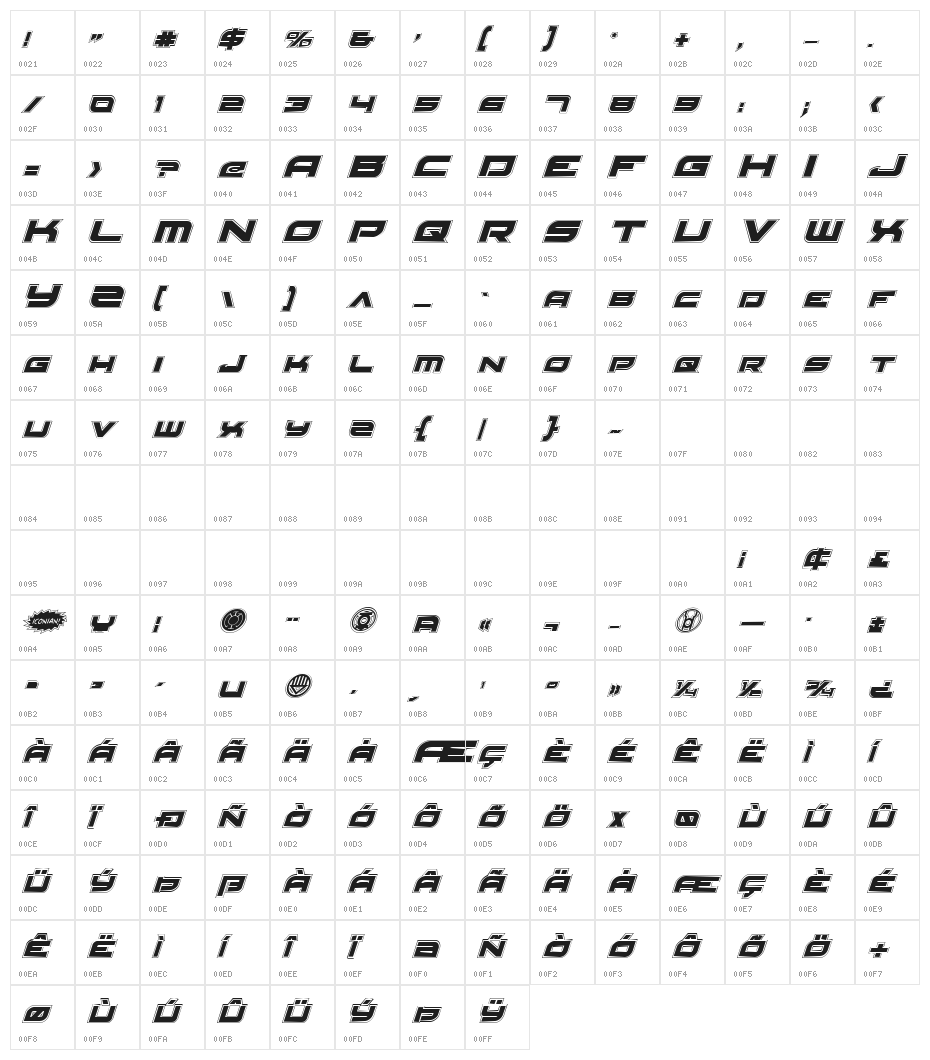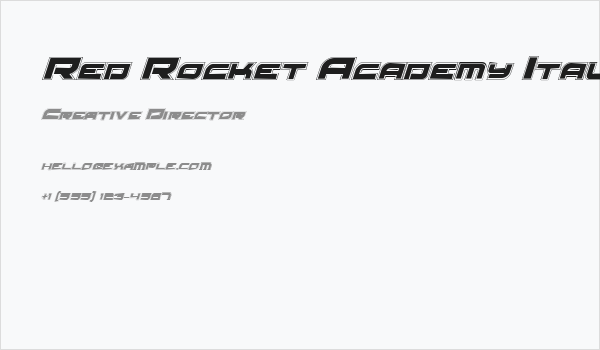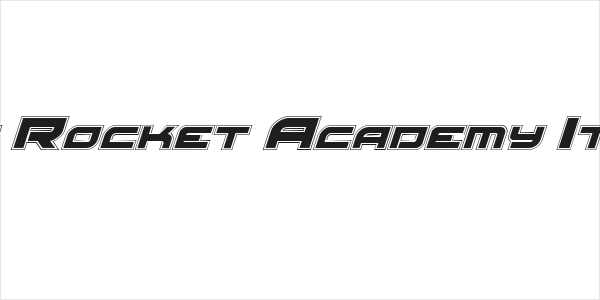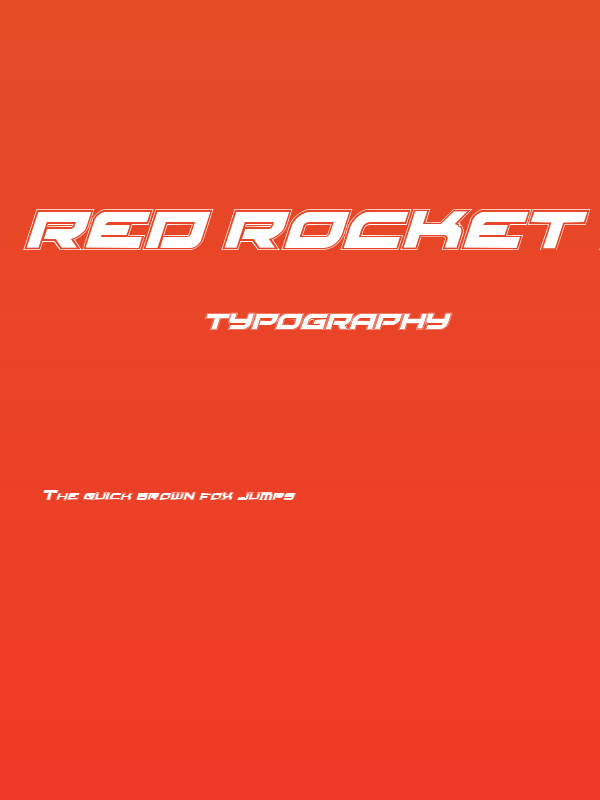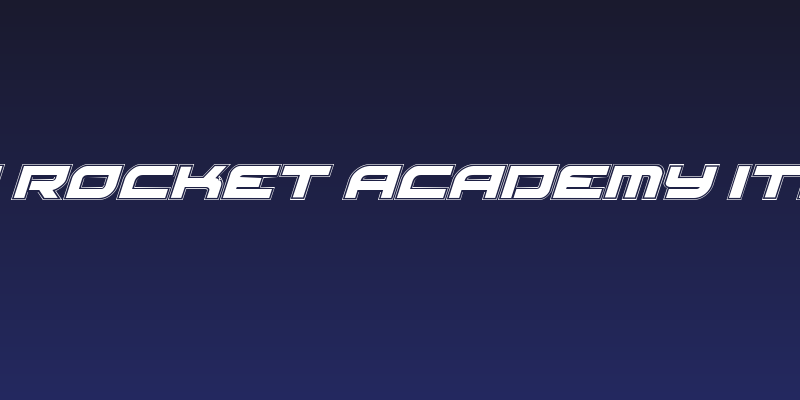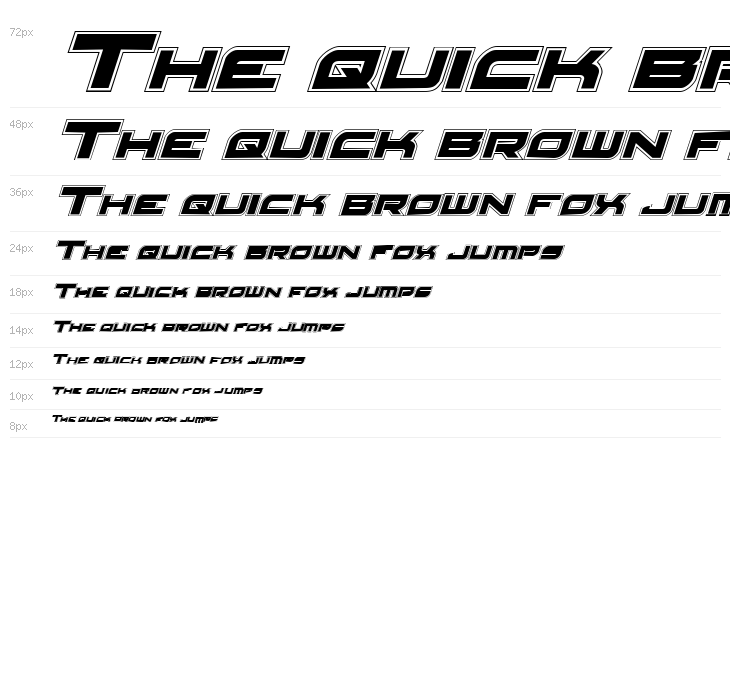
Red Rocket Academy Italic Font
This font features a bold, italicized style with a futuristic and dynamic appearance. The characters are designed with a strong emphasis on angular lines and sharp edges, giving it a sense of movement and speed. The uppercase letters are particularly striking, with a consistent slant that enhances the italic effect. The numbers and special characters maintain the same bold and angular aesthetic, ensuring uniformity across all glyphs. The font's design is reminiscent of sci-fi themes and modern technology, making it ideal for projects that require a contemporary and energetic look.
| Proposed Projects | Ideal for sci-fi themed designs, technology branding, video game titles, and modern advertising. |